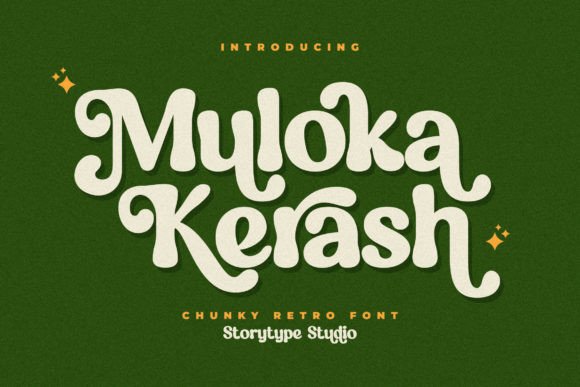
Behold Muloka Kerash, the peerless serif font, meticulously crafted by the visionary font artisans at Storytype Studio. A font of exceptional grace, Muloka Kerash dances across the screen, leaving a trail of elegance and charm. It effortlessly blends the allure of the past with the vibrancy of the present, creating a timeless masterpiece that will captivate hearts and minds.
Step into a realm of boundless creativity, where Muloka Kerash becomes your trusted companion. Let your imagination run free as you explore the infinite possibilities this font presents. Its alluring curves and refined edges lend an air of sophistication to any project, whether it be a personal journal, a captivating novel, or a bold marketing campaign.
Muloka Kerash is not merely a font; it is an experience. It evokes a sense of nostalgia, transporting you back to a bygone era of romance and splendor. Yet, it simultaneously exudes a modern flair, ensuring your designs remain relevant and captivating in today's digital landscape.
The font's versatility knows no bounds. It seamlessly adapts to a myriad of design concepts, from the classic and traditional to the daring and unconventional. Its timeless appeal guarantees that your creations will endure the test of time, remaining fresh and captivating for years to come.
Join the ranks of discerning designers who have embraced Muloka Kerash as their font of choice. Let your designs blossom with elegance, sophistication, and a touch of nostalgia. Unleash your creativity and let Muloka Kerash carry your words and ideas to new heights of brilliance.